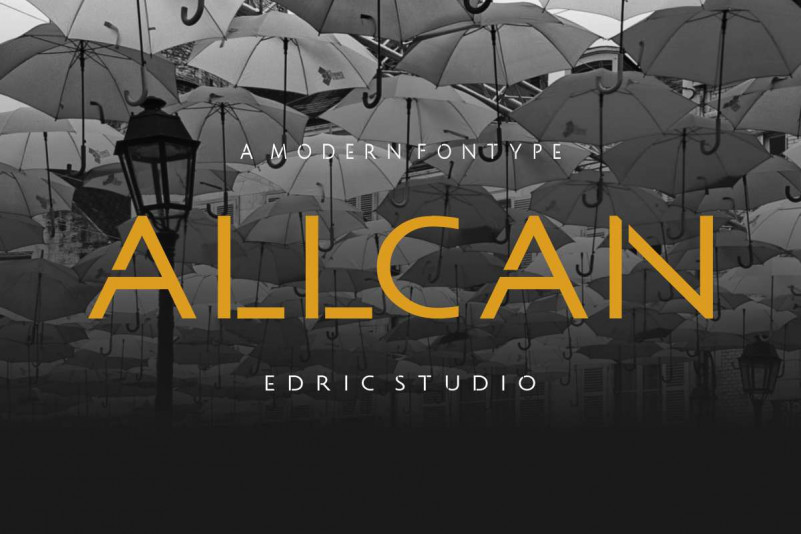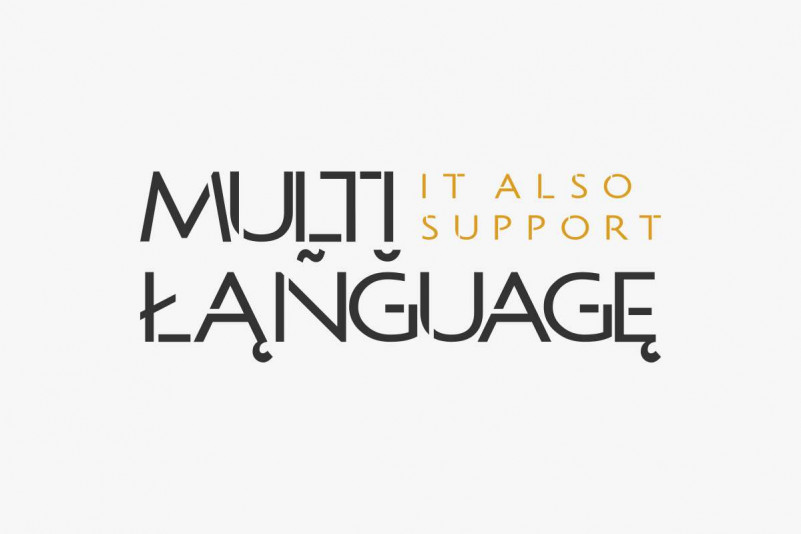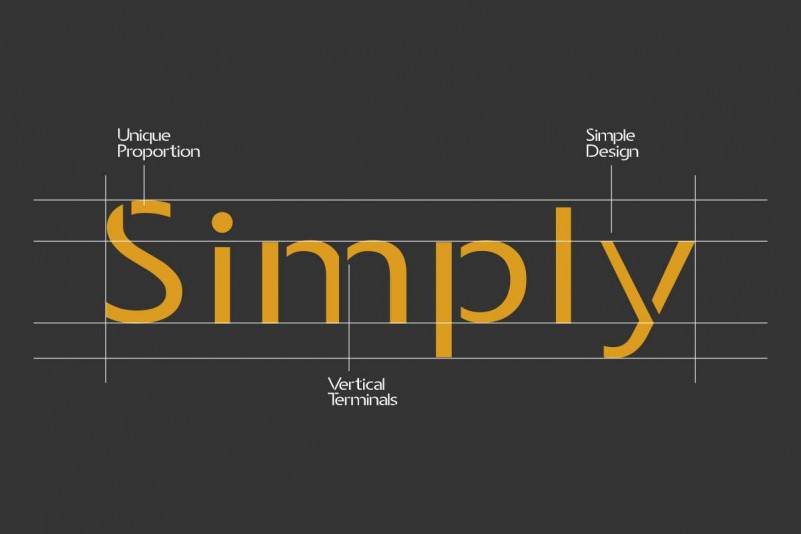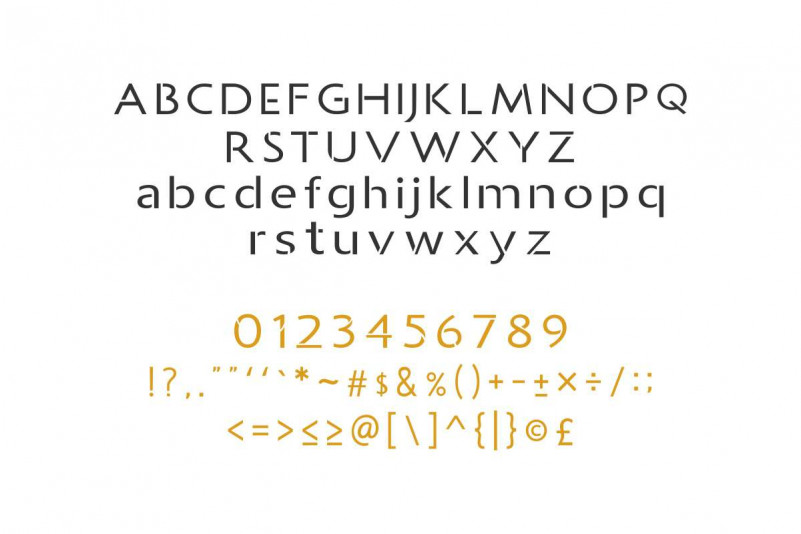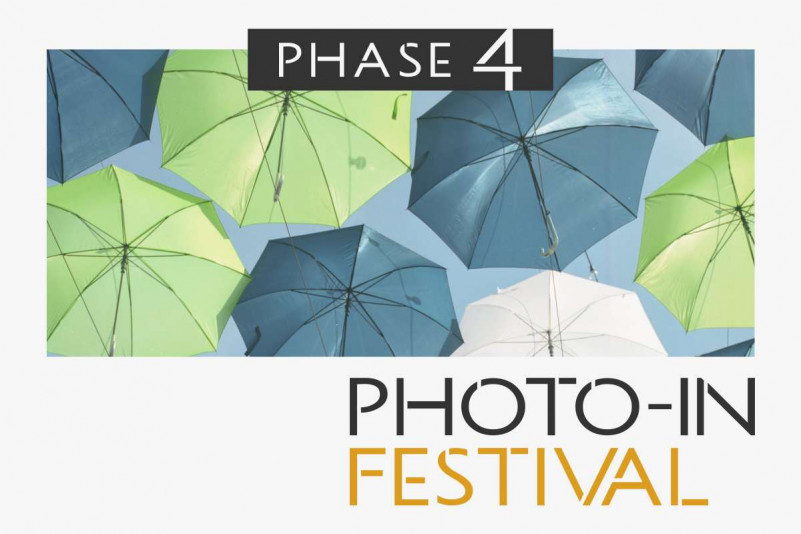
Allcan Modern Font
Hi Everyone! Introducing our newest font : Allcan Modern Font! This is a new modern font. Will be Great for branding, logo, stationery, business card, etc